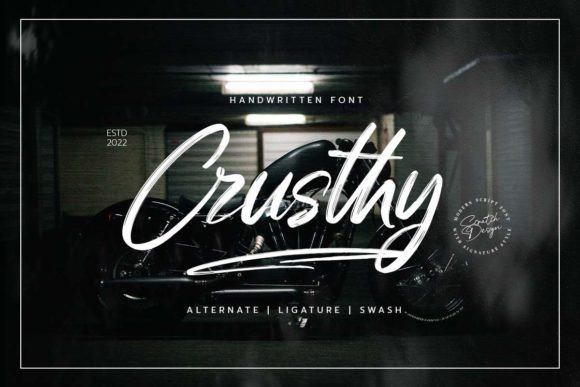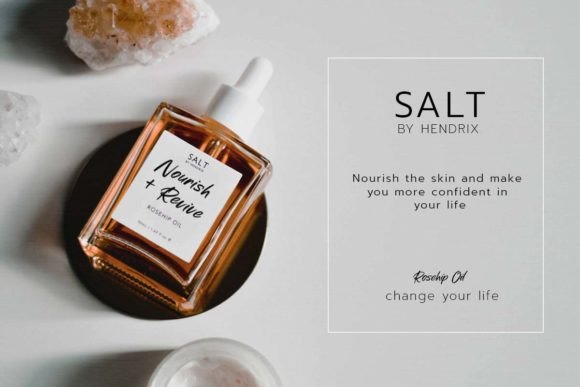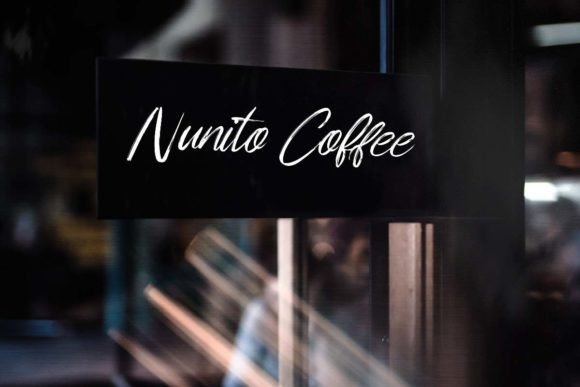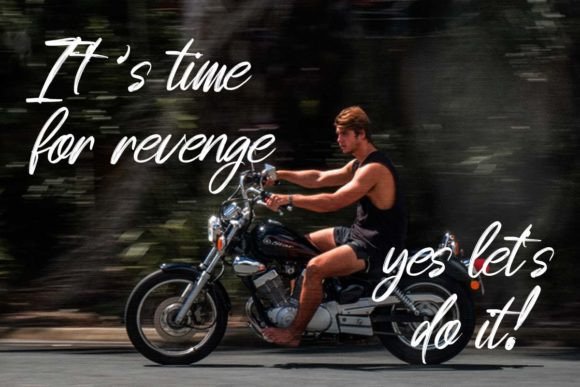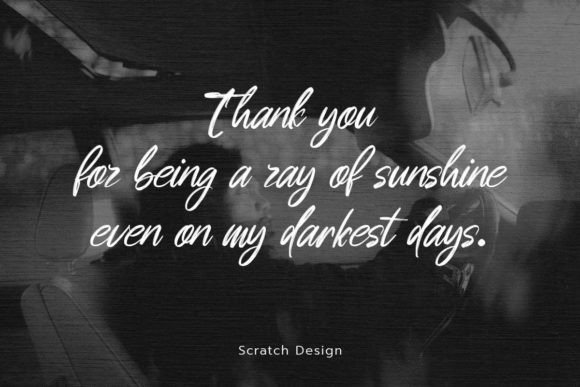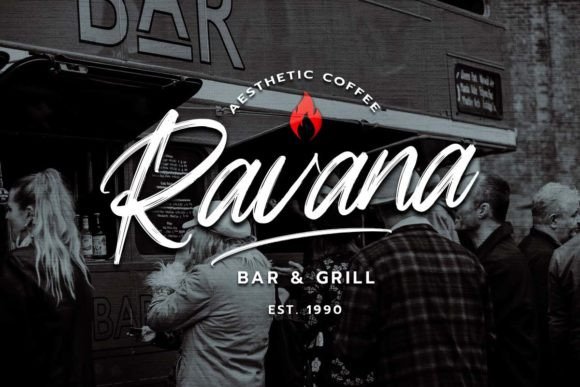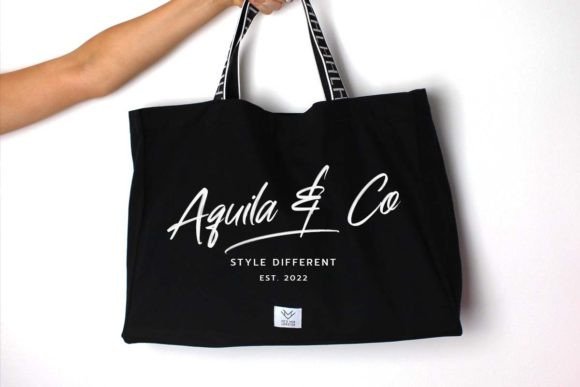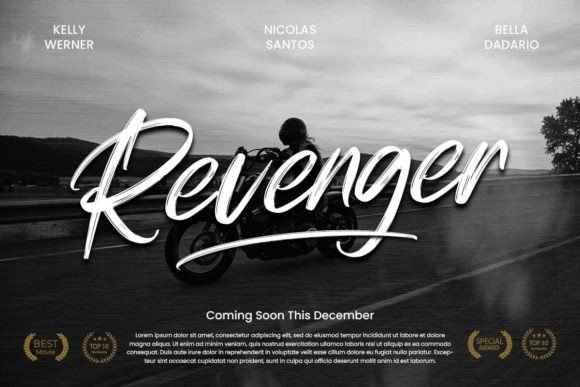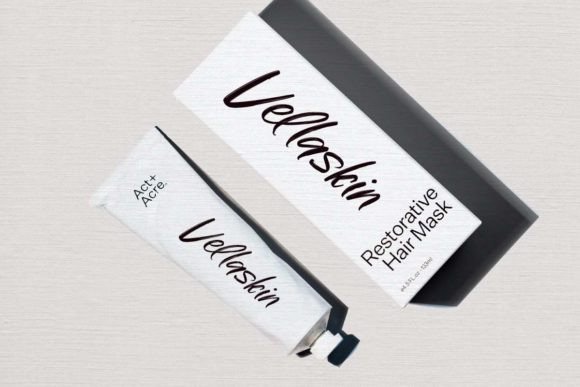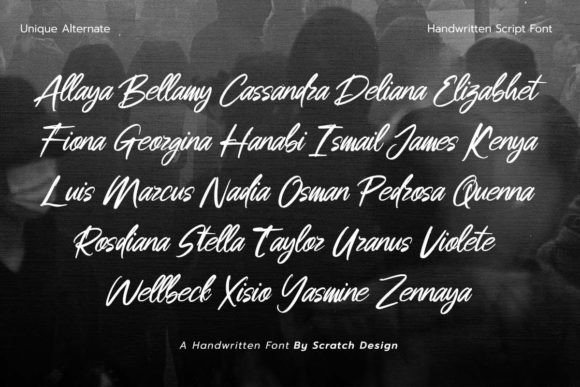
Crusthy Font Font
Discover the Unique Style of Crusthy Font
Crusthy Font is a modern handwritten typeface featuring a signature style with an authentic brush texture. This font delivers a natural, textured handwriting look that feels genuine yet remains easy to read. Whether you apply it on colorful backgrounds or minimalist designs, Crusthy Font stands out and adds personality to any project.
Its bold brush strokes combined with a clear and stylish structure make Crusthy Font a versatile choice for creative designs.
Versatile Uses for Crusthy Font
You can use CrusthyFont in many different projects, such as:
• Colorful social media graphics and posts
• Headlines and titles on minimalist layouts
• Branding and logo design
• Posters, flyers, and promotional materials
• Invitations and greeting cards
• Product packaging and labels
Thanks to its textured brush style and modern signature flair, CrusthyFont brings a fresh and authentic feel to all your creative work.
Its well-balanced kerning and spacing keep your text readable and visually appealing across all sizes and formats.
Why Designers Choose Crusthy Font
Designers and creatives value CrusthyFont for its unique brush texture and signature style. It adds an authentic, handmade feel without sacrificing clarity. Whether you are a professional or a hobbyist, CrusthyFont helps you create striking and memorable typography that grabs attention.
Use CrusthyFont to bring a bold, artistic edge to your next creative design.